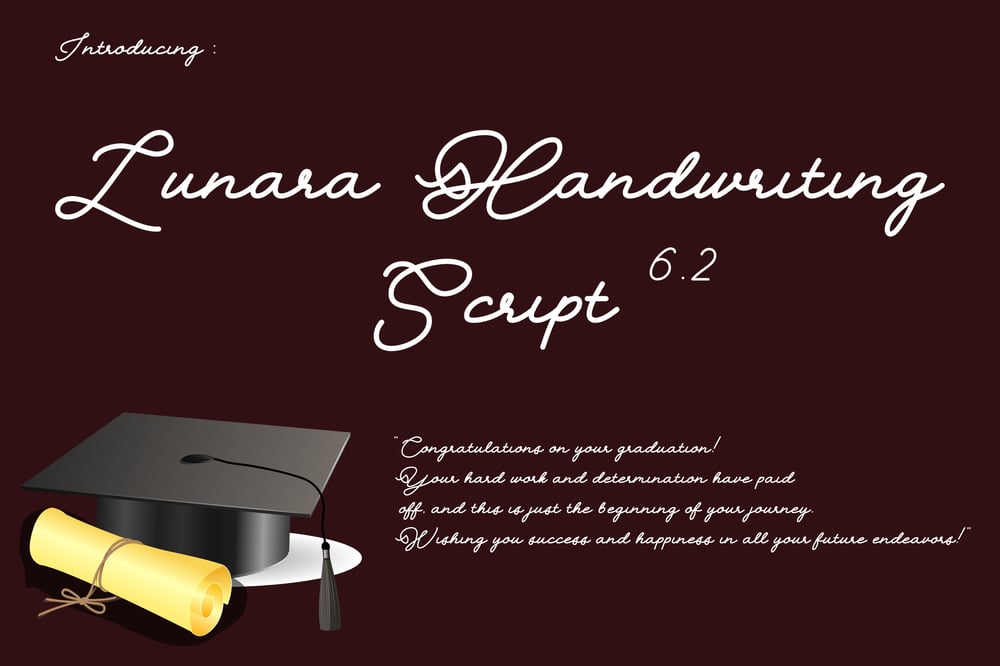
Lunara Handwriting Script 6.2 Font Family was designed by Ar Ars and published by Font Seven. Lunara Handwriting Script 6.2 contains 1 styles and family package options. Lunara Handwriting Script 6.2: Redefining Handwritten EleganceUnleash your creativity with Lunara Handwriting Script 6.2, a sophisticated and versatile font designed to bring a personal and elegant touch to your projects. Perfect for professionals and hobbyists alike, this font embodies the natural beauty of handwritten style, combined with modern features for optimal performance in today’s digital and print designs.Why Lunara Handwriting Script 6.2 Stands Out Natural Handwriting Aesthetic: Crafted to replicate authentic handwriting with smooth, flowing strokes. Dynamic Ligatures and Swashes: Add unique flair to every design with customizable ligatures and decorative swashes. Enhanced Multilingual Support: Designed to cater to global audiences with an expanded character set. Versatility Across Applications: Ideal for logos, wedding stationery, social media, and more. Optimized for Designers: Works seamlessly in Adobe Illustrator, Photoshop, Canva, and other design tools. Endless Possibilities with Lunara Handwriting Script 6.2 Wedding Designs: Create timeless invitations, RSVP cards, and thank-you notes. Branding Projects: Showcase your brand’s personality with stylish and memorable typography. Social Media Content: Enhance your posts, stories, and banners with trendy handwritten fonts. Product Labels: Design standout packaging with elegant typography. Personalized Gifts: Add a custom touch to crafts, cards, and keepsakes. Perfect for Designers and CreativesLunara Handwriting Script 6.2 is more than just a font—it’s a statement. Its elegant and versatile design makes it the perfect choice for anyone looking to elevate their projects. From branding to personal use, this font seamlessly adapts to your vision.